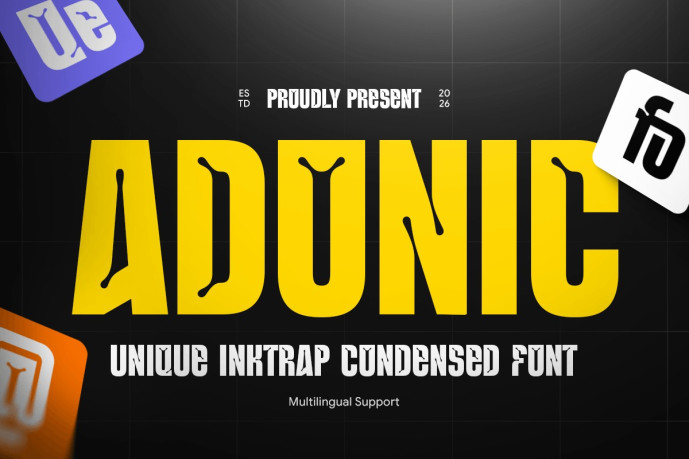
Adonic – Unique Inktrap Condensed Font
Adonic – Unique Inktrap Condensed Font Adonic is a unique inktrap condensed font designed to combine precision, readability, and contemporary style. Featuring distinctive inktrap cuts, narrow letterforms, and clean geometric construction, Adonic is perfect for logos, branding, editorial layouts, packaging, user interfaces, technology visuals, and modern creative projects.
Blending functional inktrap typography with a streamlined condensed structure, Adonic creates a bold and memorable visual identity. Its carefully engineered letterforms improve clarity across both large headlines and smaller text while maintaining a unique and professional appearance, making it ideal for startups, agencies, digital products, technology brands, and corporate design.
Adonic – Unique Inktrap Condensed Font Features:
Modern inktrap style with unique condensed aesthetics
Precision-cut letterforms for enhanced readability
Ideal for logos, branding, editorials, interfaces, and packaging
Uppercase, lowercase, numerals, and punctuation included
Clean geometric construction with space-efficient design
Perfect for technology, startups, agencies, and corporate branding
Create sharp and modern branding with Adonic – the unique inktrap condensed font built for precision and visual impact.